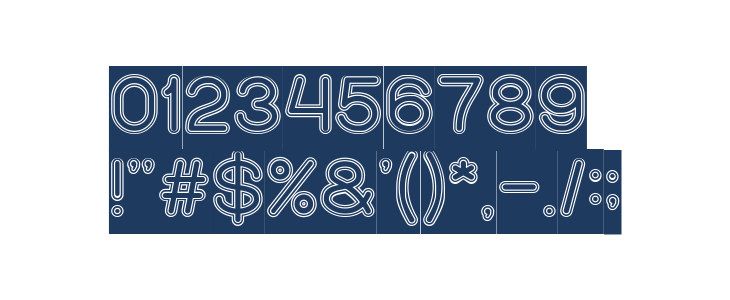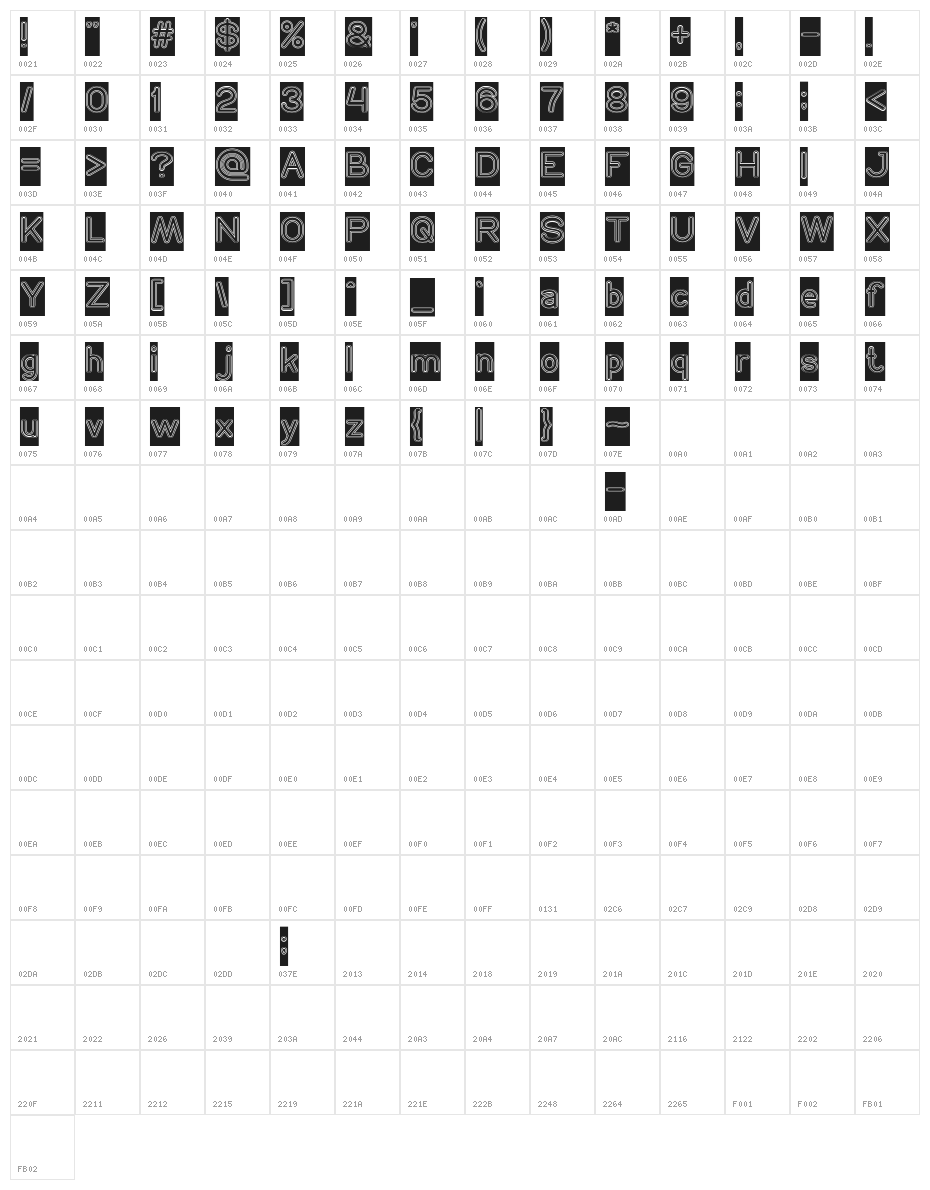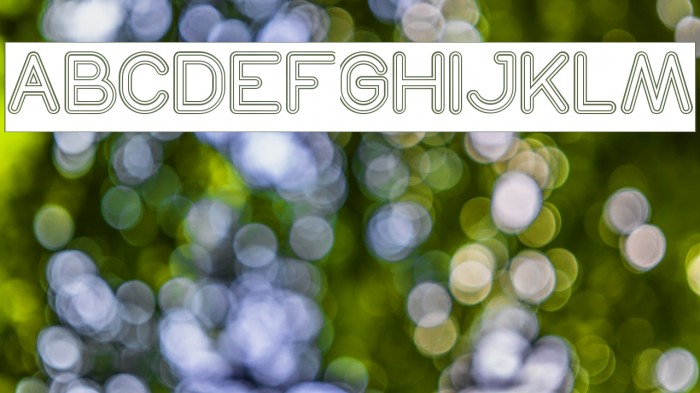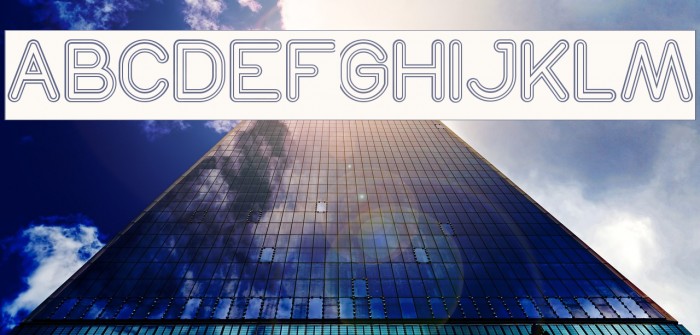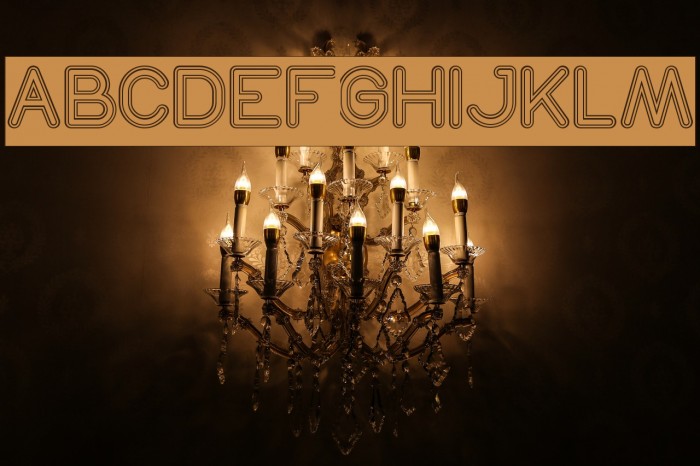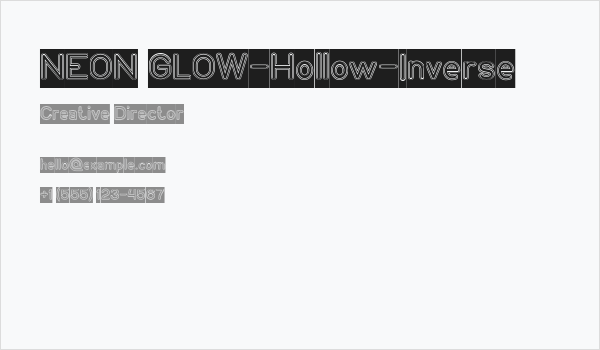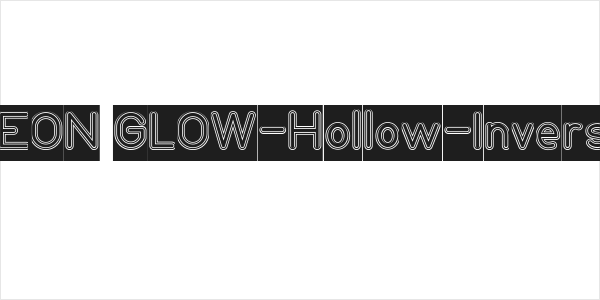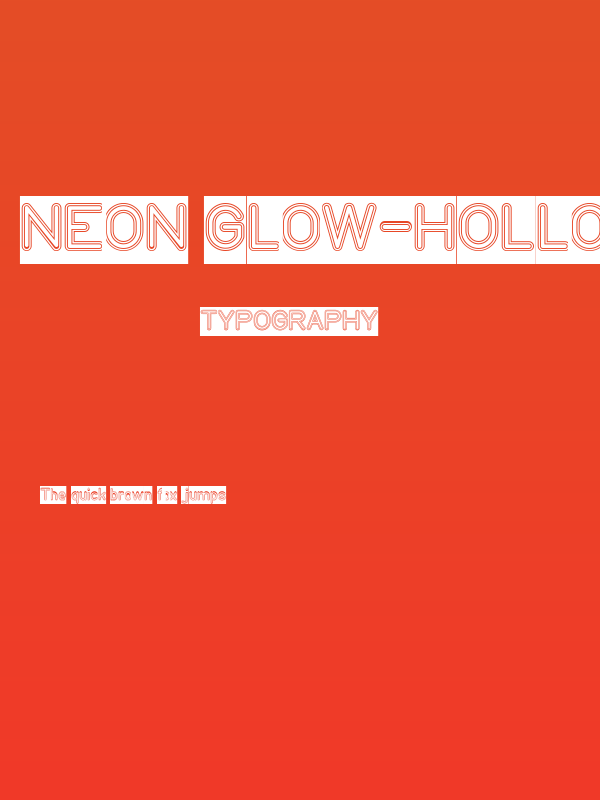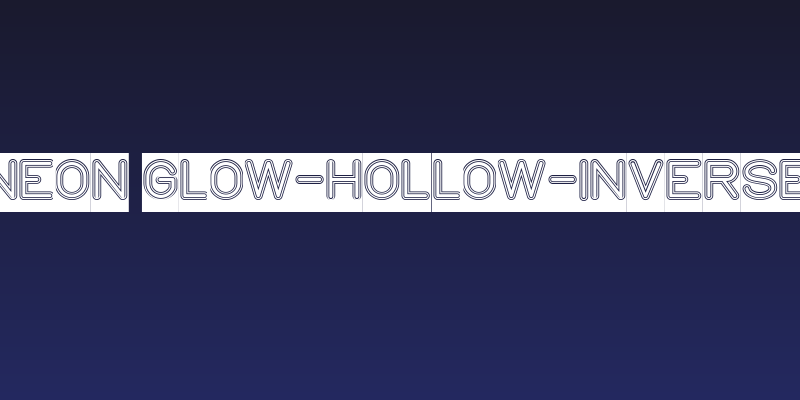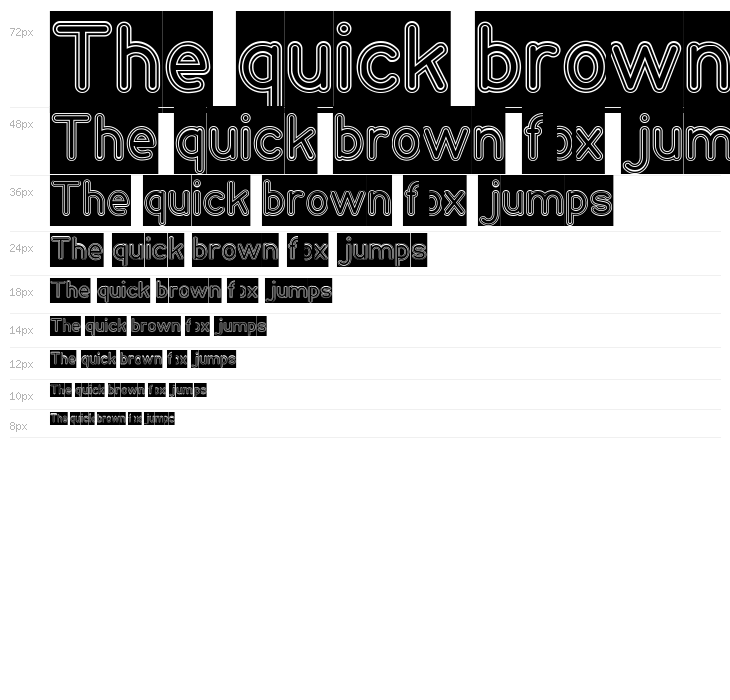
NEON GLOW-Hollow-Inverse Font
NEON GLOW-Hollow-Inverse Description
This font features a striking hollow design with a neon glow effect, creating a modern and eye-catching appearance. The characters are outlined with a consistent thickness, giving them a bold yet airy feel. The uppercase and lowercase letters maintain a uniform style, ensuring readability while adding a unique flair. The numerals and special characters are designed to match the overall aesthetic, making this font versatile for various applications. Its distinct style is perfect for projects that require a futuristic or retro vibe, such as digital art, signage, or branding.
| Proposed Projects | Ideal for digital art, signage, branding, and projects needing a futuristic or retro vibe. |